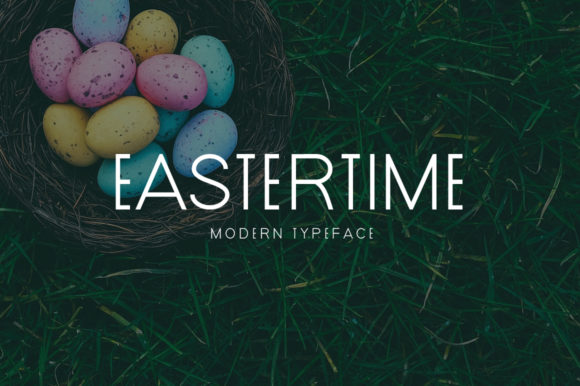
Unleash the enchanting spirit of Eastertime, our latest display font, an exquisite creation by MSB, designed to bring a touch of whimsy and cheer to your creative endeavors. With its meticulously crafted characters, Eastertime captivates and enchants, leaving an everlasting impression on any project it graces.
Immerse yourself in a realm of boundless possibilities with Eastertime, the perfect font for adding a distinctive flair to your stationery, logos, t-shirts, paper crafts, print designs, website headers, photo frames, flyers, music covers, posters, image sliders, and more. Its versatility knows no bounds, allowing you to weave your creative magic across a multitude of platforms and mediums.
Elevate your designs to new heights with Eastertime, a font that effortlessly blends playfulness and sophistication. Its intricate details and flowing lines evoke a sense of wonder and joy, transforming ordinary words into captivating works of art. Let Eastertime be your muse, inspiring you to create designs that resonate with your audience, leaving them spellbound and eager for more.